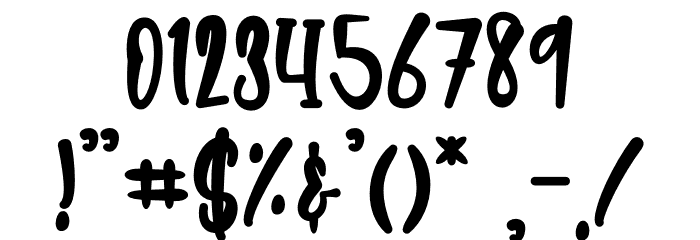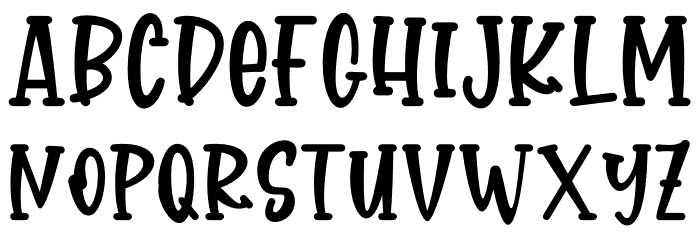
strawberry cheesecake Font
This playful and whimsical font features bold, rounded characters with a hand-drawn appearance. The uppercase letters are slightly irregular, adding a casual and friendly vibe. The lowercase letters maintain the same playful style, with some characters featuring unique loops and curves. Numbers are consistent with the overall style, ensuring readability while maintaining the font's charm. Special characters are creatively designed, fitting seamlessly with the rest of the set. This font exudes a sense of fun and creativity, making it ideal for projects that require a personal touch.
A playful, hand-drawn font with bold, rounded characters and a whimsical style.
• Proposed Projects: Ideal for children's books, playful branding, greeting cards, and creative posters.
• Category: Handwritten
• Overall Style: Decorative
• Use Case: Logos, Headlines, Posters